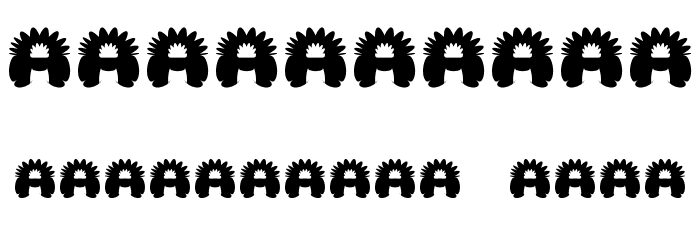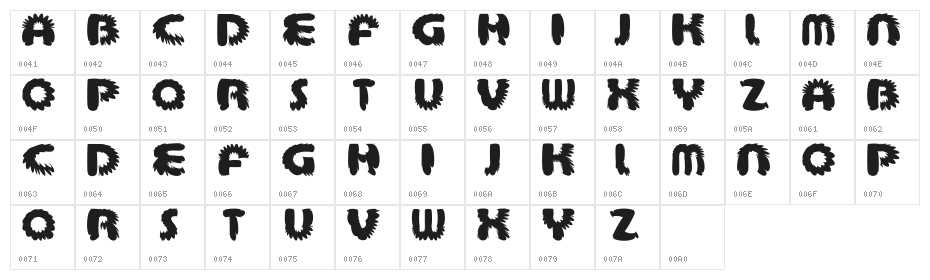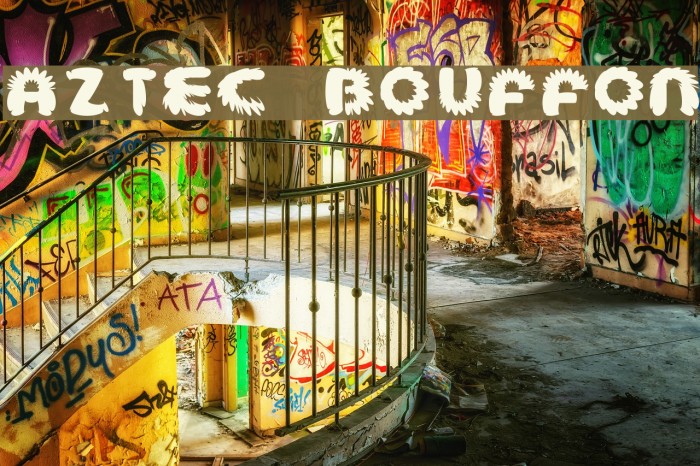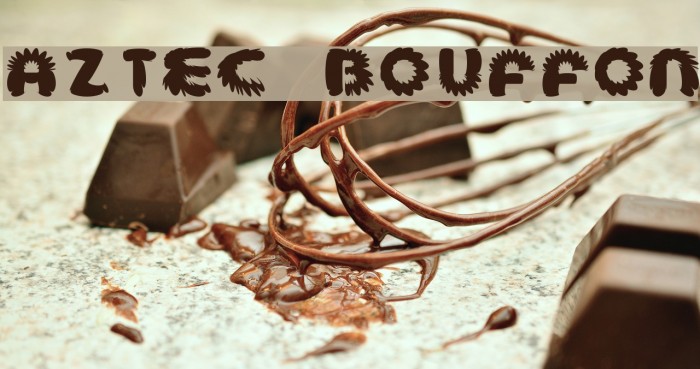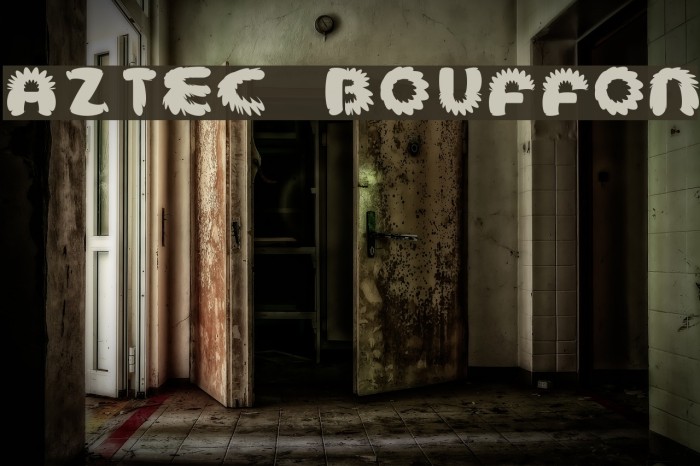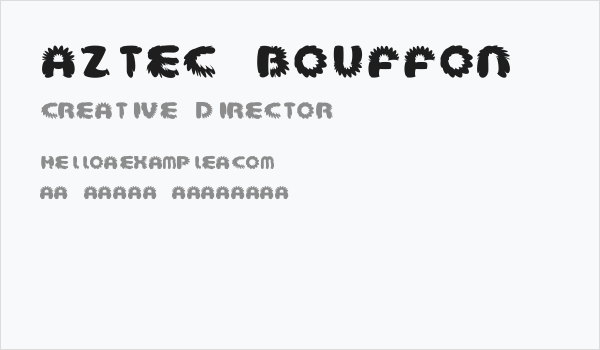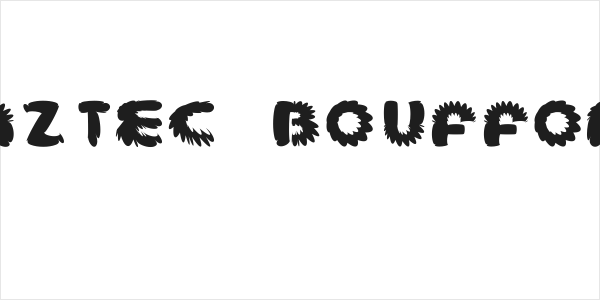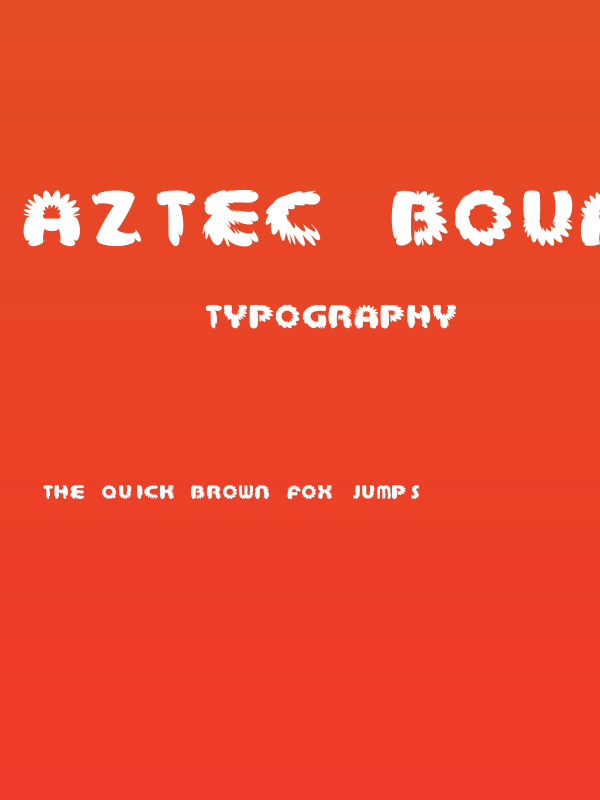
aztec bouffon Font
aztec bouffon Description
This font features a bold and decorative style with unique, intricate details that resemble feathers or flames extending from the characters. The uppercase letters are particularly striking, with each character having a distinct flair that adds a sense of movement and dynamism. The lowercase letters maintain this decorative theme, ensuring consistency throughout the typeface. The overall appearance is highly stylized, making it ideal for projects that require a dramatic and eye-catching aesthetic. The font's boldness and unique design elements make it stand out, while the consistent spacing between characters ensures readability despite its decorative nature.
| Proposed Projects | Ideal for posters, album covers, branding, and any project needing a dramatic, eye-catching typeface. |